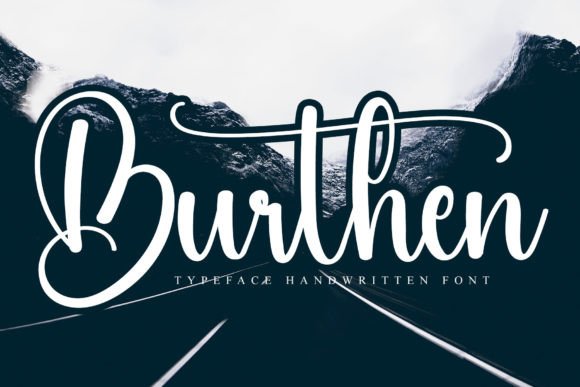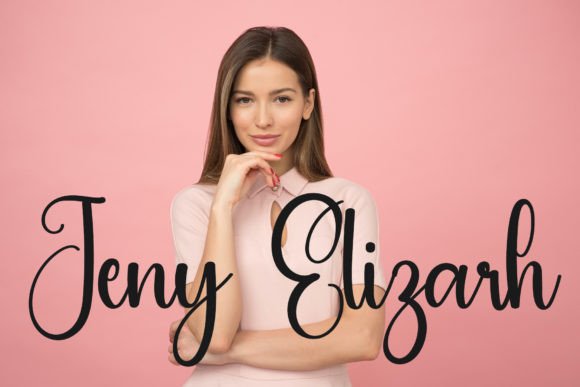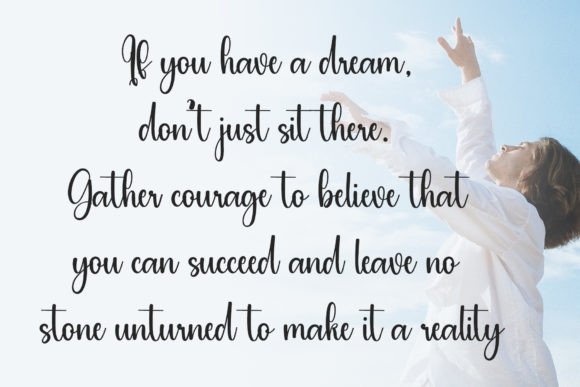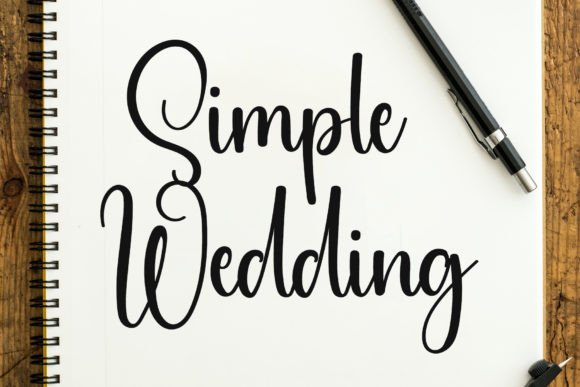
Burthen Font: Elegant Cursive Script for Wedding & Branding Design
About the Burthen Font
Make a bold statement with Burthen Font, a powerful and memorable font. Burthen is a sweet and cursive handwritten font. This gentle font will look gorgeous on a variety of design ideas. It will add a joyful and romantic touch to each of your projects! Perfectly fit for branding, logo, wedding things, greeting cards, fashion, lookbook, marketing promotion, anytime you want to look elegant but still casual.
Burthen’s elegant yet casual style makes it ideal for branding projects requiring a touch of personal warmth, particularly logos, invitations, and short-form marketing materials like social media posts or small advertisements. It excels in applications where readability isn’t paramount, such as headlines, short quotes, or watermarks. However, its cursive nature makes it unsuitable for body text or UI elements where legibility is crucial. Avoid using it for large blocks of text or any context demanding high levels of readability.
Pairing Burthen effectively requires considering its delicate nature. A clean sans-serif like Montserrat or a geometric sans-serif like Futura would provide a strong, modern counterpoint, grounding the script’s fluidity. For a more traditional feel, a classic serif font such as Garamond or Times New Roman could complement its romantic feel.
Burthen projects a friendly and romantic personality; it’s soft, approachable, and charming—perfect for brands associated with weddings, beauty, fashion, or handcrafted goods. Its slightly informal quality is best suited to conveying feelings of intimacy and personal connection.
Burthen Font Usage Examples
Burthen Font Example